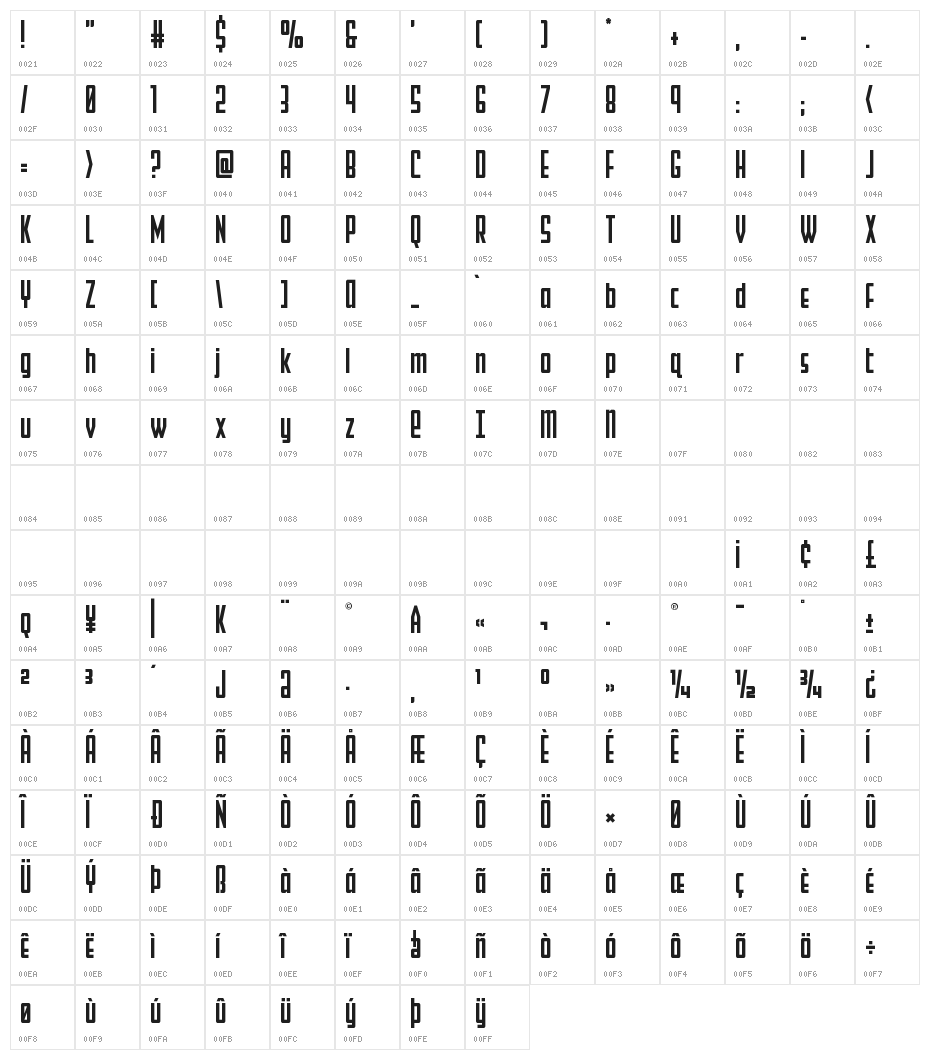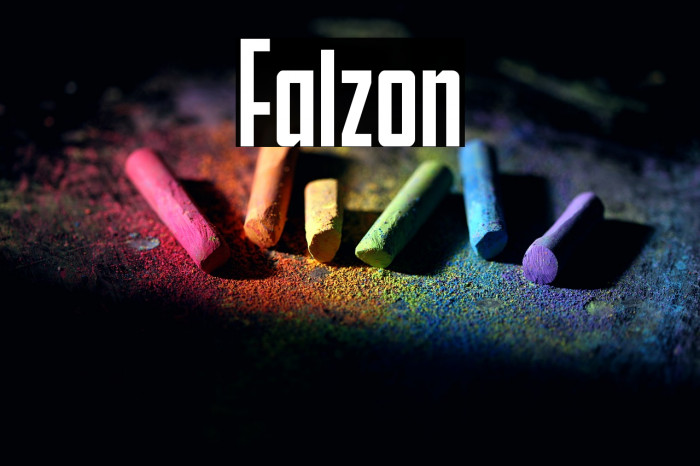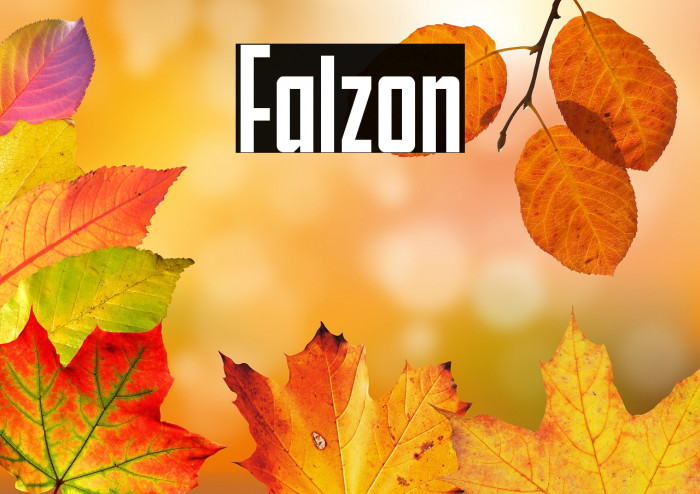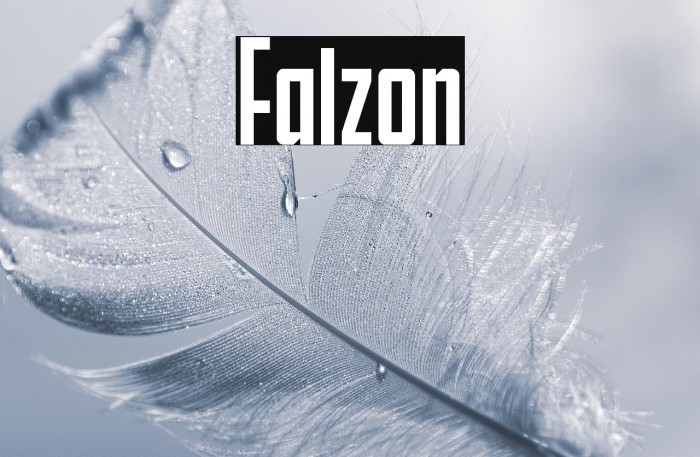
Falzon Font
Falzon Description
This font features a bold and geometric design with a modern flair. The characters are tall and narrow, giving a condensed appearance that is both striking and legible. The uppercase letters have a uniform height, while the lowercase letters maintain a consistent style with slightly rounded edges. The numerals are clear and distinct, matching the overall aesthetic of the font. Special characters are included, maintaining the same bold and structured look. This font is ideal for making a strong visual impact.
| Proposed Projects | Ideal for branding, posters, headlines, and any design project that requires a strong, modern aesthetic. |